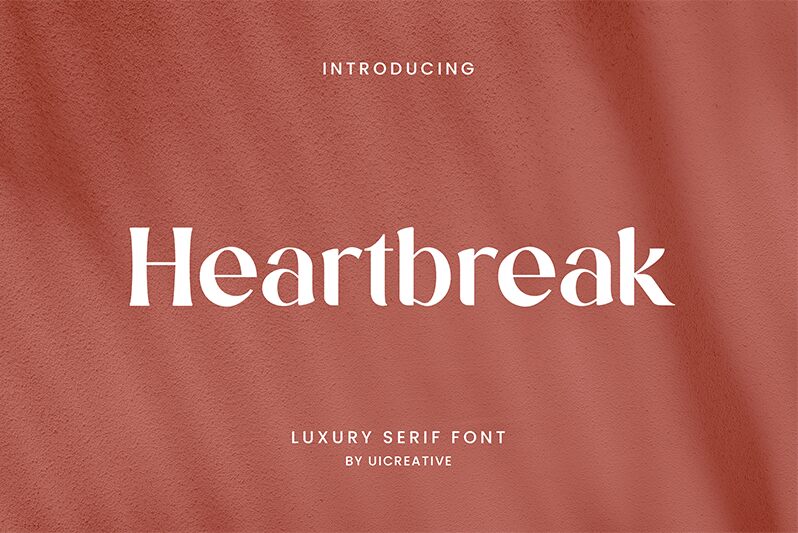
Heartbreak
Heartbreak, a luxury serif font crafted by UI Creative, exudes a captivating elegance and sophistication. Its delicate, flowing serifs and refined curves create a sense of refined opulence, while the balanced stroke weights lend an air of timeless sophistication. This font's graceful aesthetic evokes an aura of exclusivity and prestige, making it well-suited for high-end branding, editorial designs, and premium product packaging.
The versatility of Heartbreak allows it to seamlessly transition between various design contexts. Its refined and polished appearance lends itself well to formal invitations, wedding stationery, and luxurious product labeling. Additionally, the font's versatility extends to editorial applications, where its readability and visual appeal can elevate the overall aesthetic of magazines, newspapers, and digital publications.